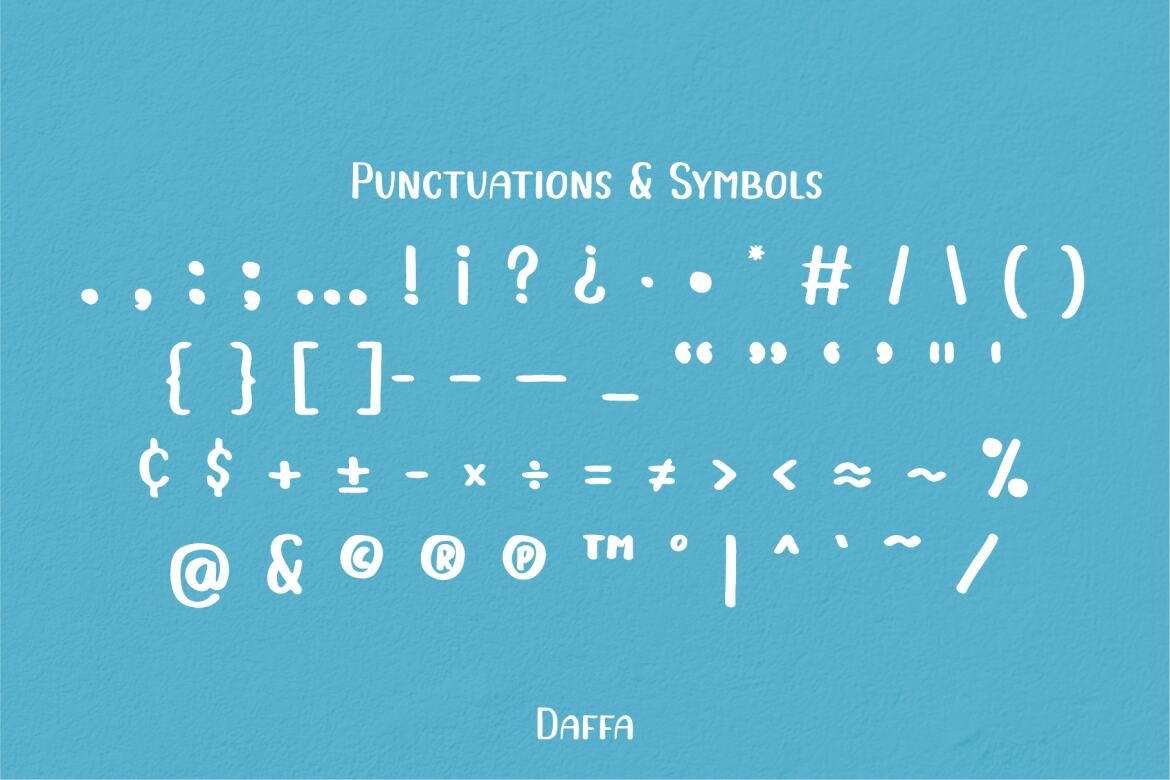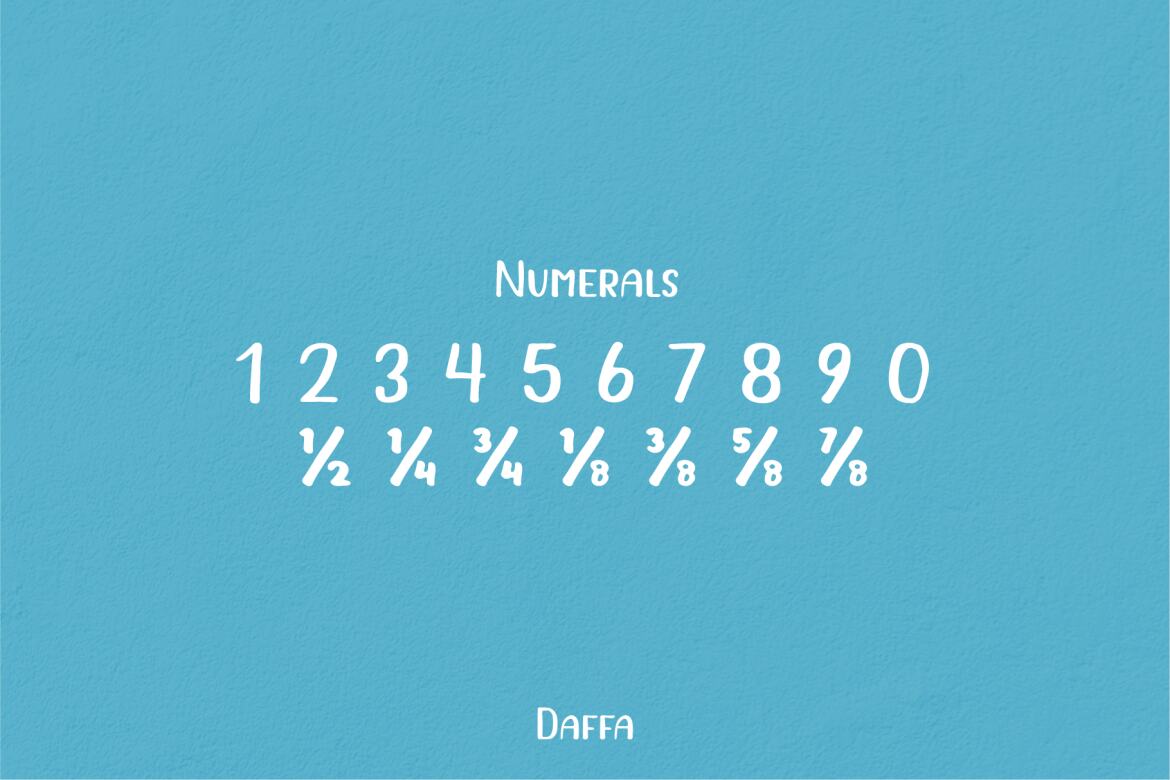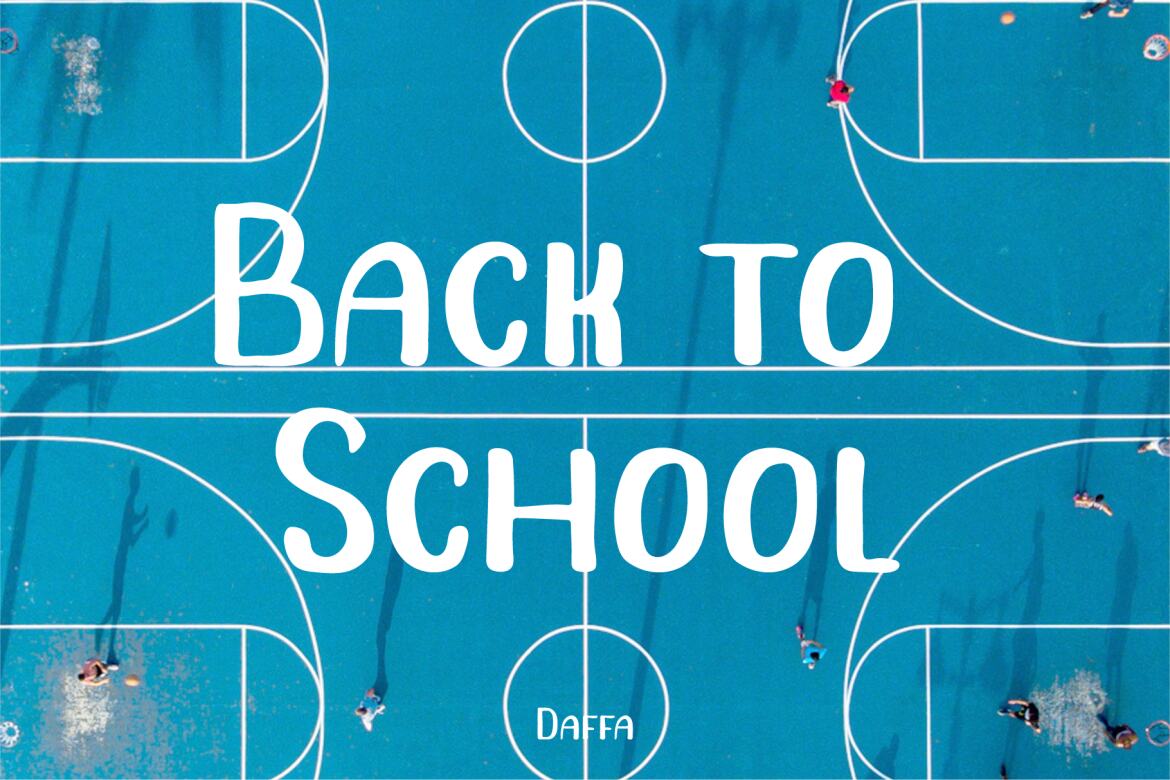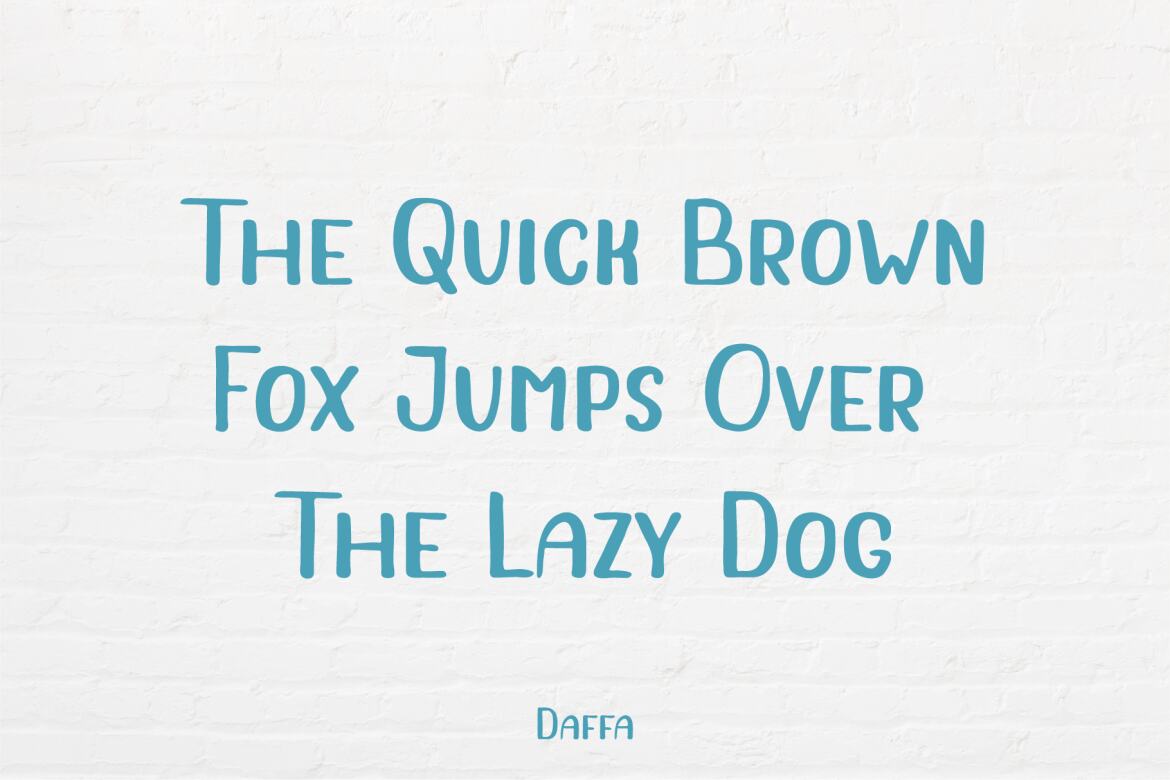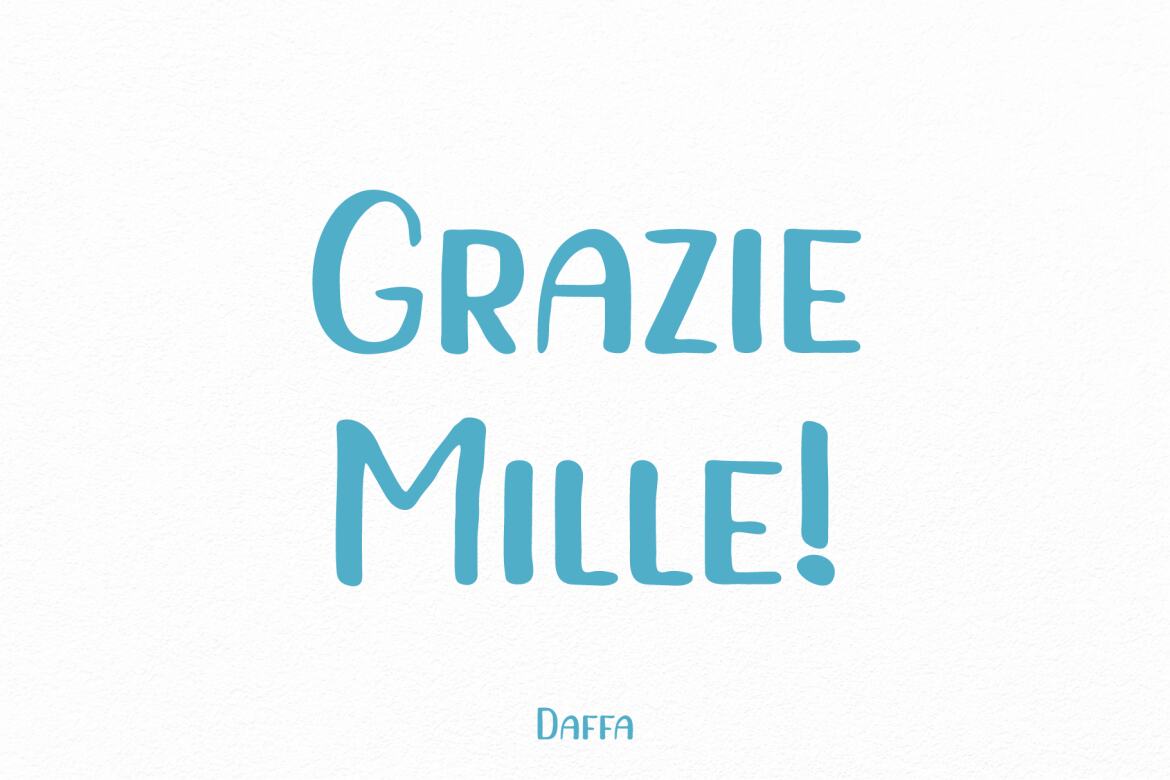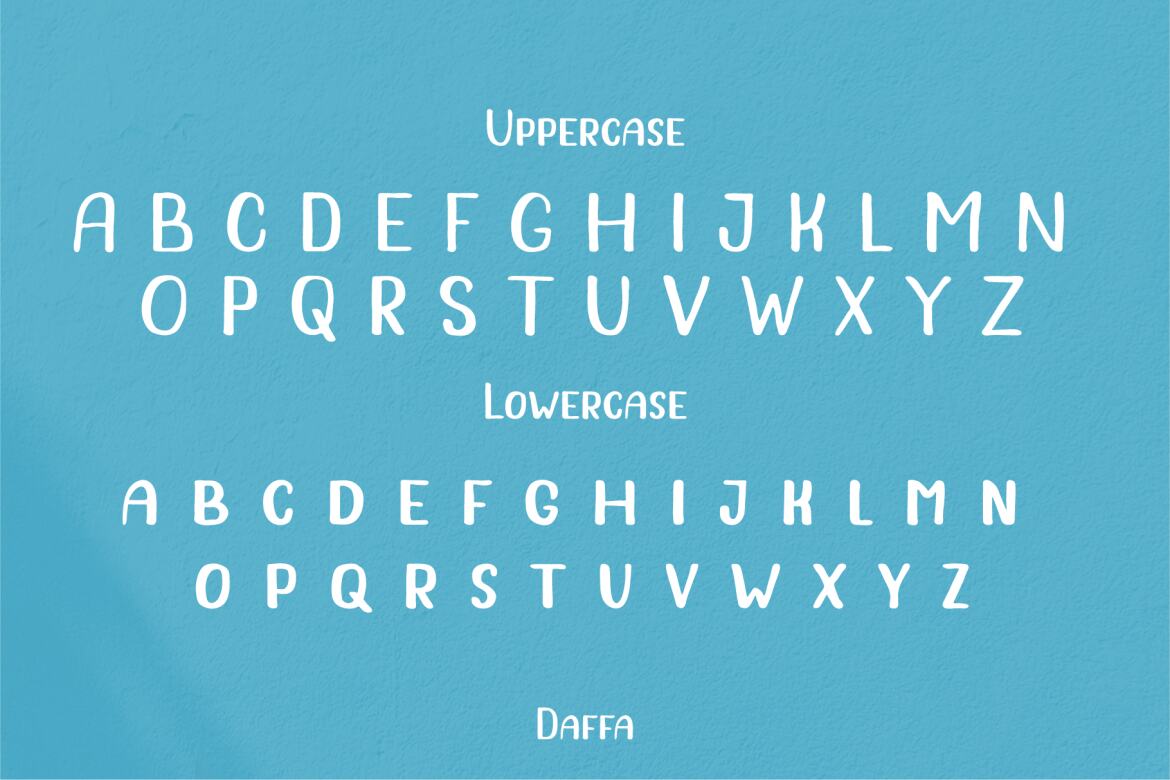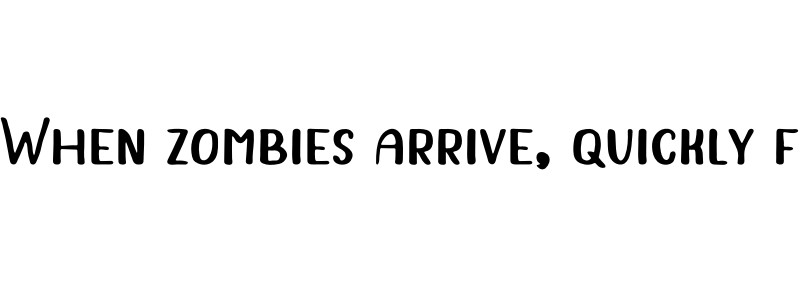
Daffa - FREE Handwritten Font
Daffa Handwritten
Daffa is a handwritten font suitable for your creative project. It's a handmade font made with brush pen and paper.
• handwritten typeface
• numerals & punctuation
• uppercase & small-caps